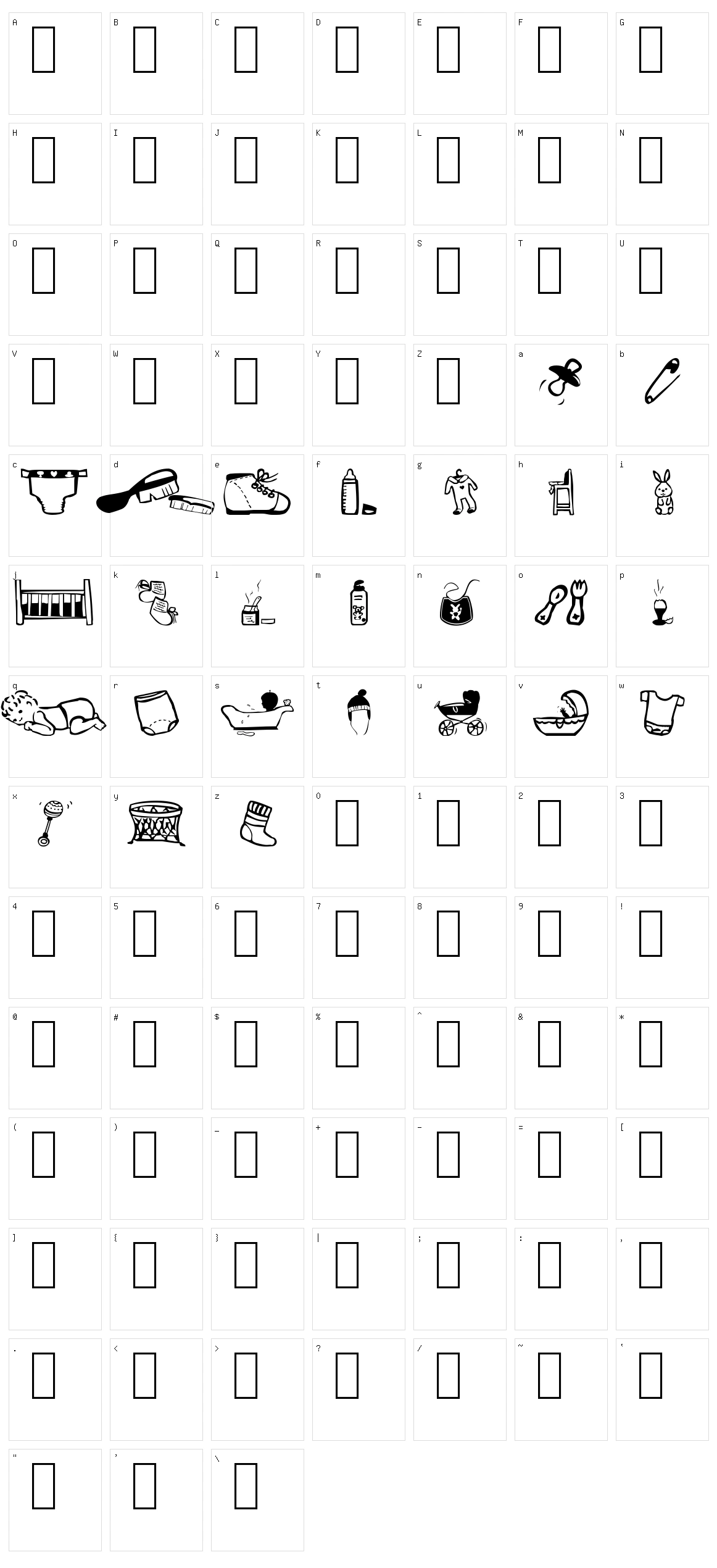
A FONT FOR FREE ! "BABY'S WORLD"
This font contains 26 attractive dingbats that you can get
Cette police contient 26 dessins sympas que vous obtiendrez